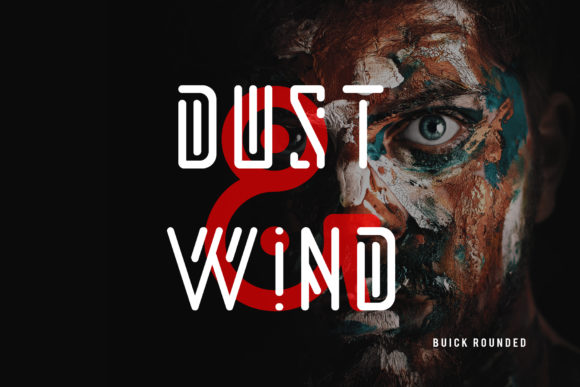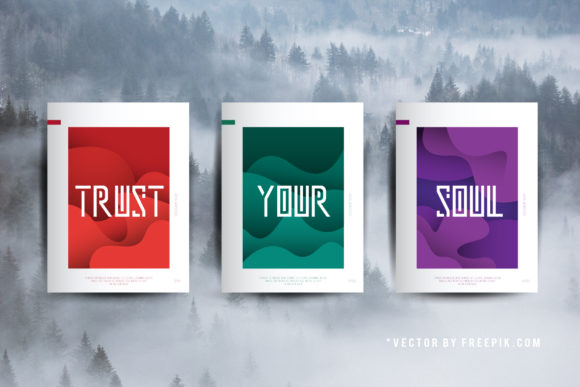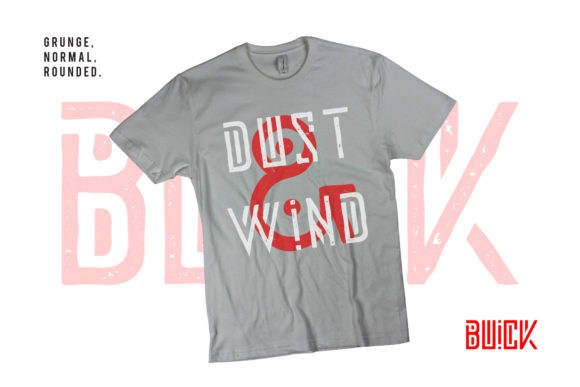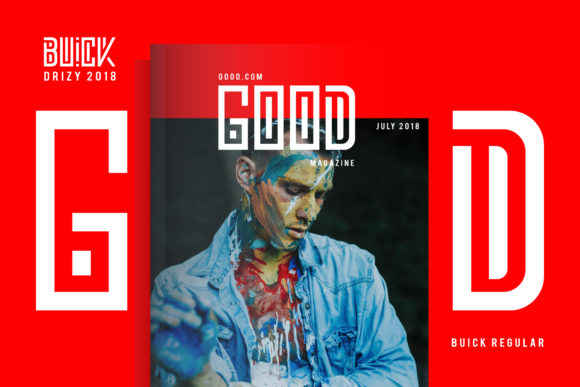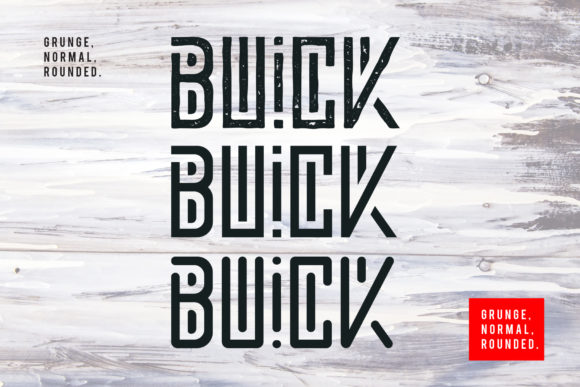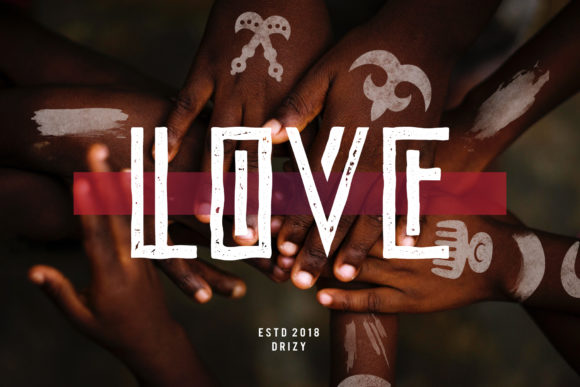
Introducing Buick Font: The Futuristic Typeface for Modern Design
Are you tired of using the same old fonts in your design projects? Look no further than Buick Font, a stunning and futuristic typeface that adds a unique twist to any design. With its sleek lines and contemporary feel, Buick Font is perfect for designers and crafters looking to give their projects a modern edge.
What is Buick Font?
Buick Font is a digital font designed to evoke a sense of futurism and innovation. Its unique feel is characterized by clean lines, geometric shapes, and a sense of fluidity. The font is perfect for use in a variety of design projects, from logos and branding to posters, flyers, and digital media.
Key Features of Buick Font
- Unique and Contemporary Design: Buick Font boasts a one-of-a-kind design that is sure to make your projects stand out from the crowd.
- Highly Versatile: The font is suitable for use in a wide range of design projects, from print to digital media.
- Easily Readable: Despite its futuristic design, Buick Font is highly legible, making it perfect for use in body text and headlines.
- Scalable: The font is designed to look great at any size, from small captions to large headlines.
Use Cases for Buick Font
Buick Font is perfect for designers and crafters looking to add a touch of futurism to their projects. Here are some use cases to get you started:
- Logo Design: Use Buick Font to create a unique and memorable logo for your brand or business.
- Posters and Flyers: Add a touch of futurism to your posters and flyers with Buick Font.
- Digital Media: Use Buick Font in your digital media projects, such as videos, presentations, and social media graphics.
- Packaging Design: Add a modern twist to your packaging design with Buick Font.
Tips for Using Buick Font
Here are some tips for getting the most out of Buick Font:
- Experiment with Different Sizes: Buick Font looks great at any size, so don’t be afraid to experiment with different sizes and scales.
- Pair with Other Fonts: Try pairing Buick Font with other fonts to create a unique and interesting contrast.
- Use in Combination with Images: Use Buick Font in combination with images to create a visually striking design.
Buick Font is a stunning and futuristic typeface that is perfect for designers and crafters looking to add a touch of modernity to their projects. With its unique design, versatility, and readability, Buick Font is sure to become a go-to font in your design arsenal. So why wait? Download Buick Font today and start creating stunning designs that are out of this world!
- Is Buick Font easy to read?: Yes, Buick Font is designed to be highly legible, even at small sizes.